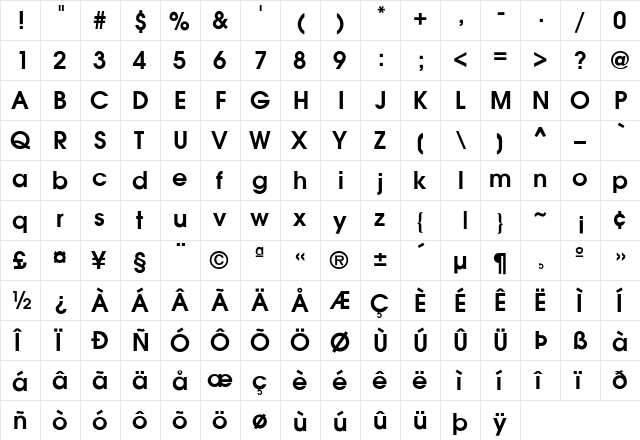
AvantGarde-Demi Regular Font Preview
AvantGarde-Demi Regular
Design Context for AvantGarde-Demi Typeface
AvantGarde-Demi offers clean, dependable letterforms without strong stylistic allegiance, making it a practical choice for designers who need flexibility.